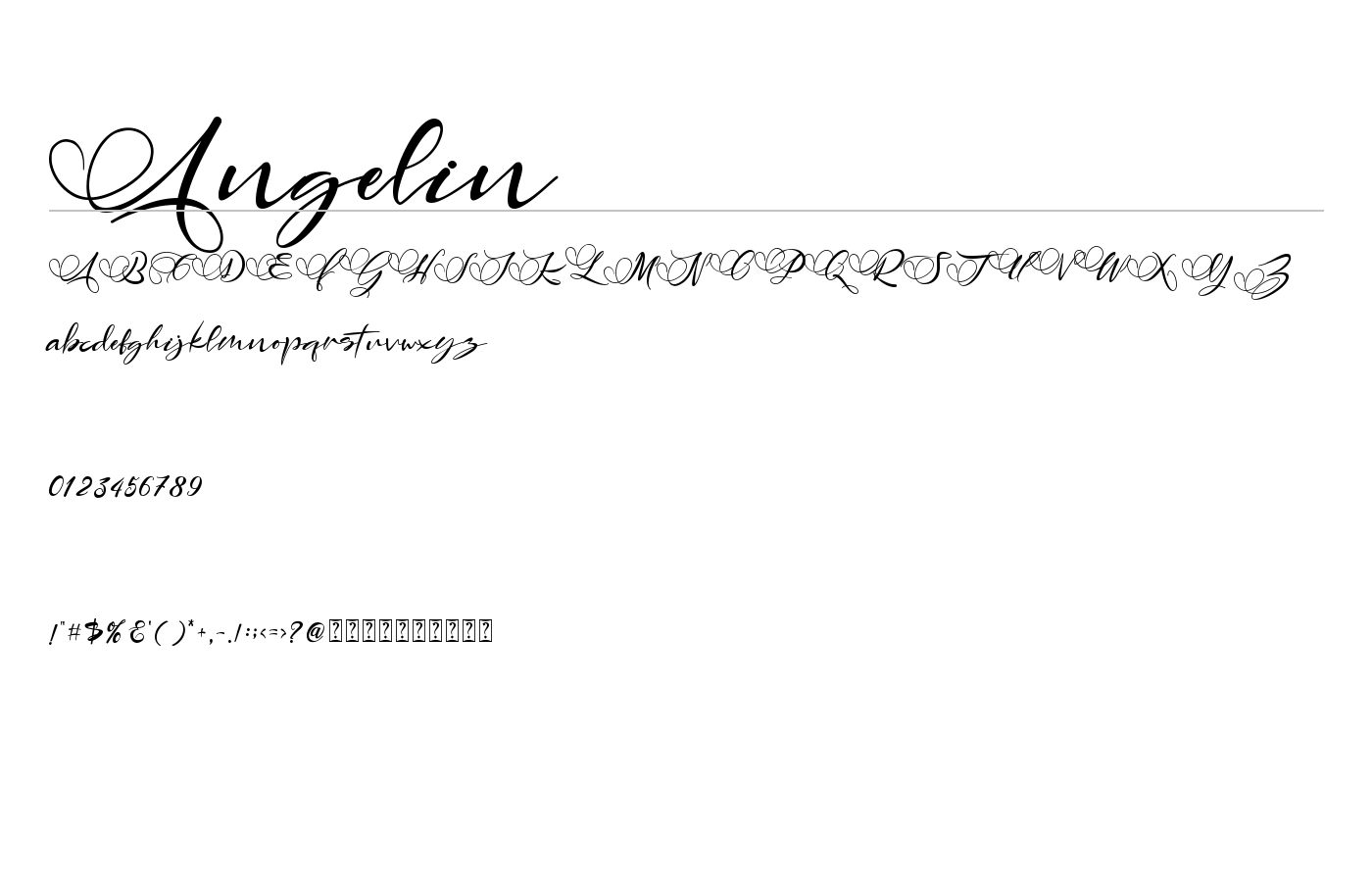
Angelin is a delicate and elegant script font characterized by its flowing, graceful strokes and ornate flourishes, especially evident in the uppercase letters. Its light weight and fluid, handwritten style evoke a romantic and sophisticated feel, making it perfect for wedding invitations, luxury branding, and feminine editorial design. This font shines in decorative uses where a touch of elegance and personal charm is desired.
Angelin Font
About Angelin Font
| Font family | Angelin Font |
| Designer | Letterara 2019 |